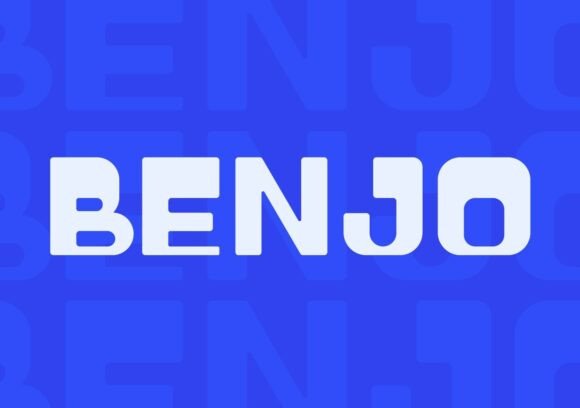
The Power of Benjo: Unleashing Impact and Style in Your Designs
I still remember the frustration of working on a project, pouring my heart and soul into every detail, only to get stuck on one thing: finding the perfect font. It was for a client’s streetwear brand, and I needed something bold, modern, and attention-grabbing. That’s when I stumbled upon Benjo, a game-changing display font that instantly elevated my design. In this article, I’ll share my experience with Benjo, its features, and how to make the most of it in your creative projects.
First Impressions: What I Love About Benjo
Benjo is more than just a font – it’s a statement piece. Here are the things that immediately won me over:
- ✨ Bold and modern design: Benjo’s strong lines and sleek aesthetic make it perfect for striking headlines, logos, and branding.
- ✅ Versatility: Whether you’re creating futuristic designs or edgy streetwear aesthetics, Benjo delivers impact and style in every letter.
- 💥 Attention-grabbing: This font is designed to command attention, making it ideal for projects that need to stand out.
While Benjo is an exceptional font, there are a few things to keep in mind:
- 🤔 Limited use cases: Due to its bold design, Benjo works best for headlines, titles, and short text. It might not be the best choice for body text or lengthy content.
- ⚠️ Legibility at small sizes: Benjo can be challenging to read at very small sizes, so make sure to test it at different scales to ensure it works for your project.
- Experiment with Benjo’s OpenType features, such as glyphs and stylistic alternates, to add more personality to your text.
The Story Behind Benjo: Designer Inspiration
Benjo was created with the goal of crafting a bold, modern display font that would make a statement. Inspired by the urban landscape and the world of streetwear, Benjo’s designer aimed to create a typeface that would be both stylish and attention-grabbing. The result is a font that’s perfect for designers, crafters, and creative hobbyists looking to add a touch of edginess to their projects.
| What is Benjo best used for? | Benjo is ideal for striking headlines, eye-catching logos, and powerful branding. It’s perfect for projects that need to stand out and make a statement. |
| Is Benjo suitable for body text? | No, Benjo is best used for short text and headlines. Its bold design can be overwhelming for lengthy content, and it may not be the most legible choice for body text. |
| Does Benjo support OpenType features? | Yes, Benjo supports OpenType features, including glyphs and stylistic alternates. You can access these features in compatible design software, such as Adobe Photoshop and Illustrator. |